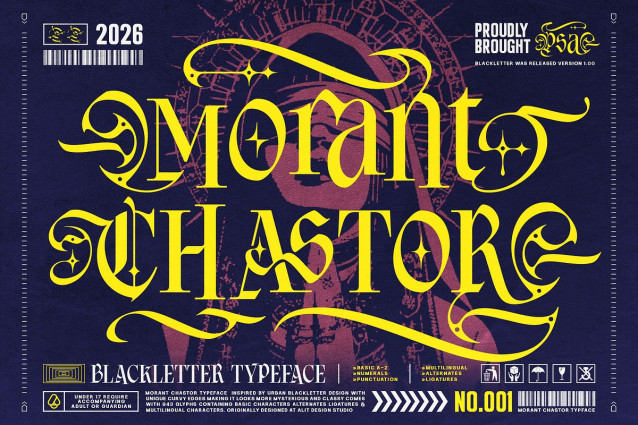
Morant Chastor Font
Morant Chastor Font a world where classic typographic tradition meets modern urban rebellion. Morant Chastor, meticulously crafted by Alit Design, is a stunning blackletter typeface that perfectly captures the essence of savage elegance and neo-noir aesthetics. Inspired by the raw, unapologetic energy of urban street culture, this font reimagines the rigid structures of traditional gothic lettering by introducing unique, sweeping curvy edges, sharp terminals, and a highly stylized contrast. The result is a mysterious, classy, and deeply captivating typeface that instantly commands attention.